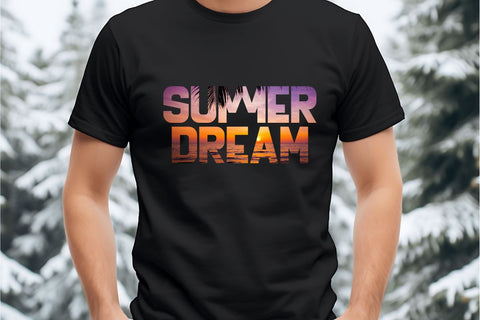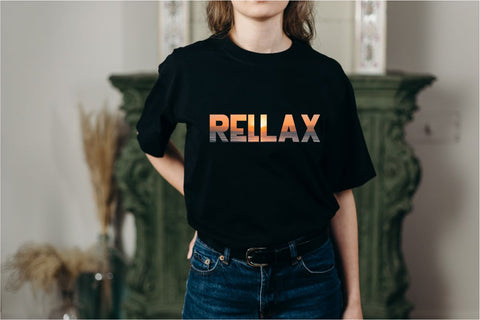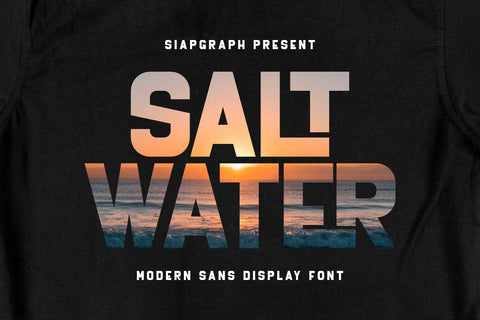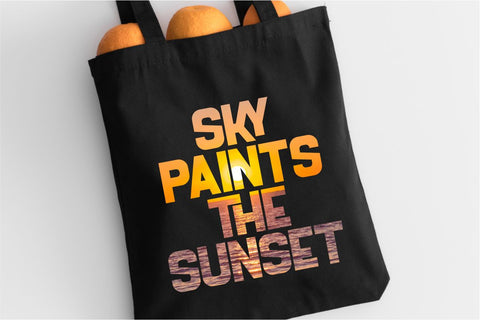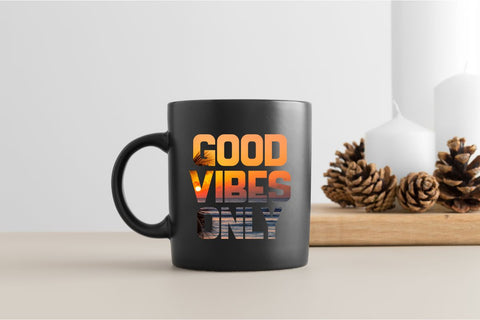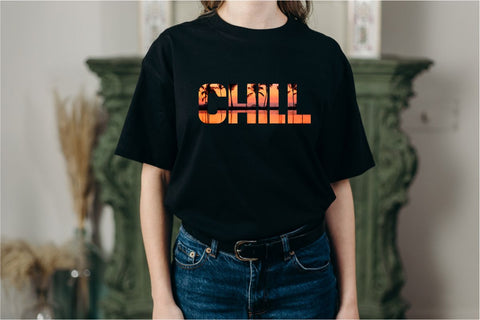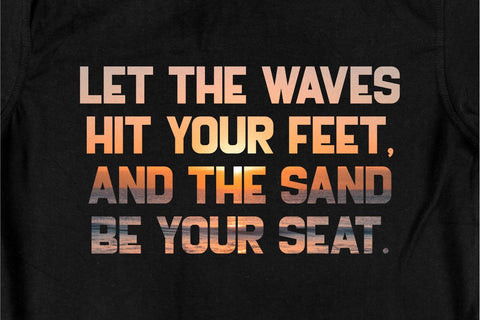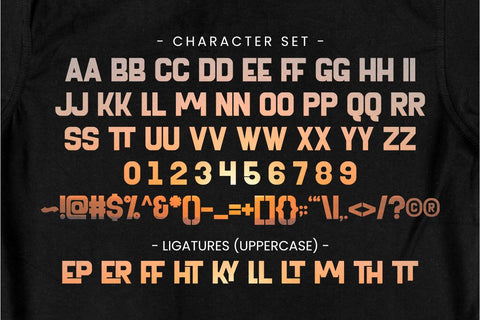
Salt Water - Summer Sans Serif Font
Salt Water is a bold modern sans display font with a clean and confident design, perfect for summer themes, beach quotes, and tropical vibes. This font is tailor-made for creators in the Print On Demand space — whether you're designing t-shirts, mugs, tote bags, or digital downloads for Etsy and Cricut.
Its strong lines and modern curves make it ideal for sublimation projects, vibrant quote prints, and eye-catching product designs. Let Salt Water bring a splash of bold personality to your next creative project!